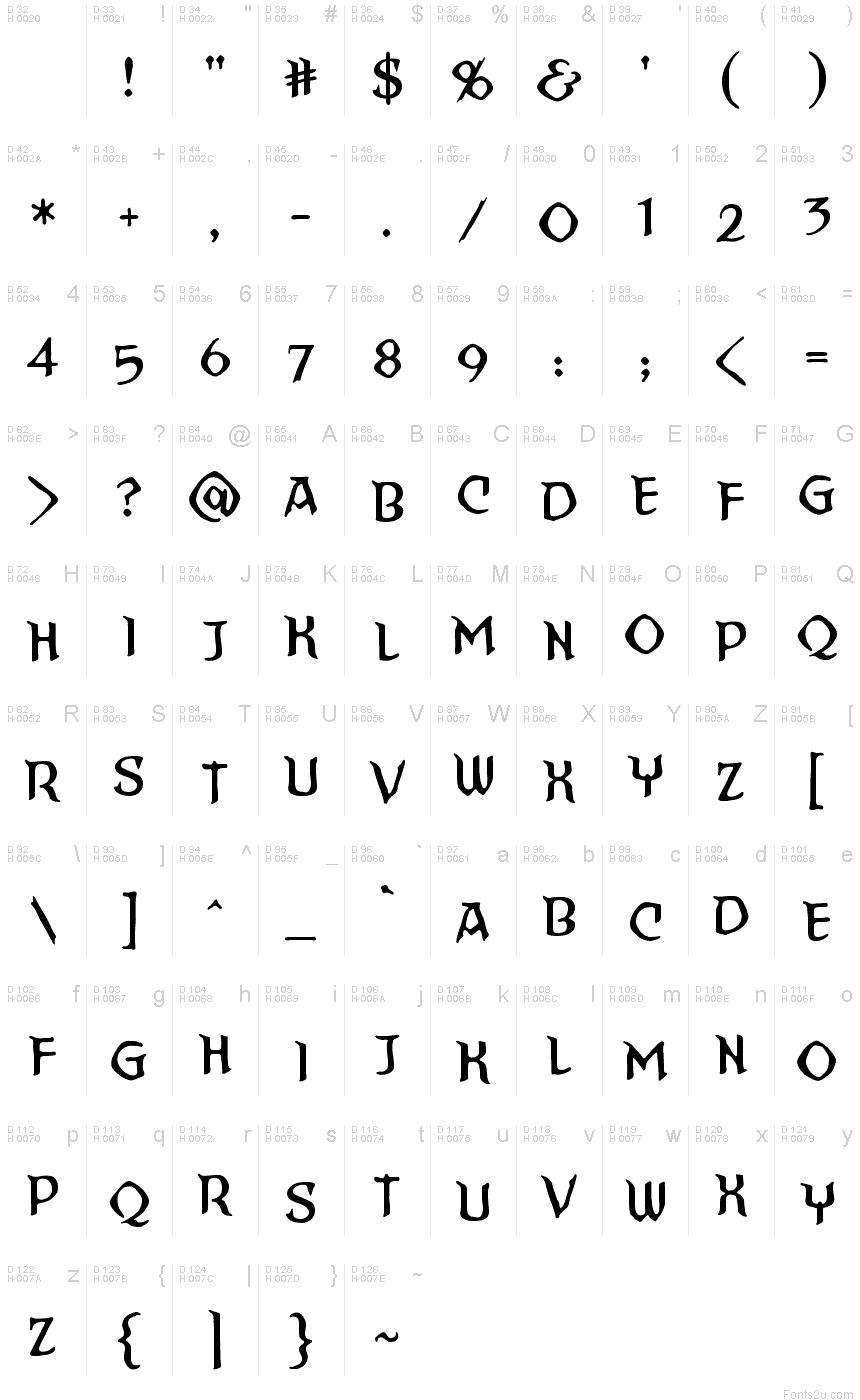
StraightToHell Sinner BB, created by Nate Piekos of Blambot.com, is a free distorted horror display font built from uneven strokes, warped serif shapes, sharp cuts, and a loose, unstable rhythm across its capitals. The letters look carved, crooked, and faintly menacing.
Horror posters are its strongest use because the irregular edges already resemble battered signage or a hand-painted warning from a low-budget midnight movie campaign. That same scratched, hand-cut surface suits metal merchandise, comic covers, and Halloween event graphics, tying all four settings to imagery of damage, danger, and unease rather than the polished world of theatrical horror or sleek gothic romance.